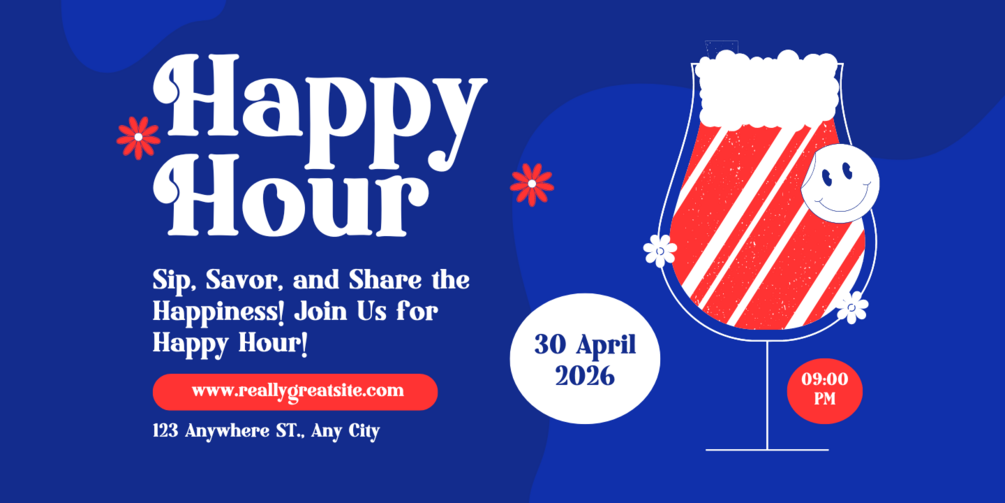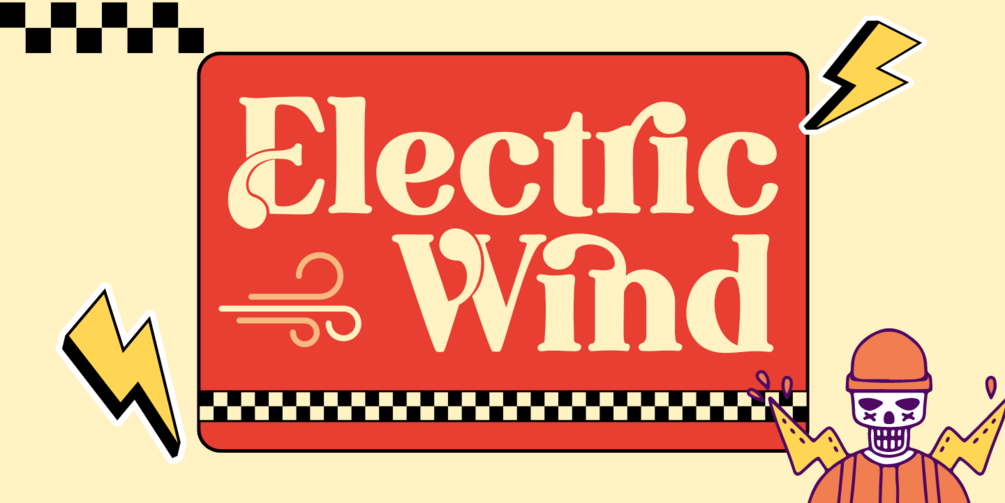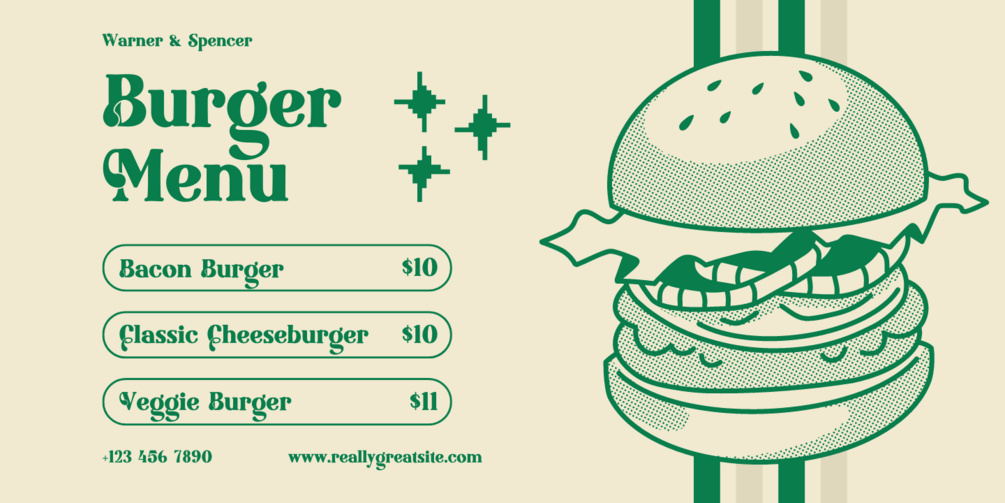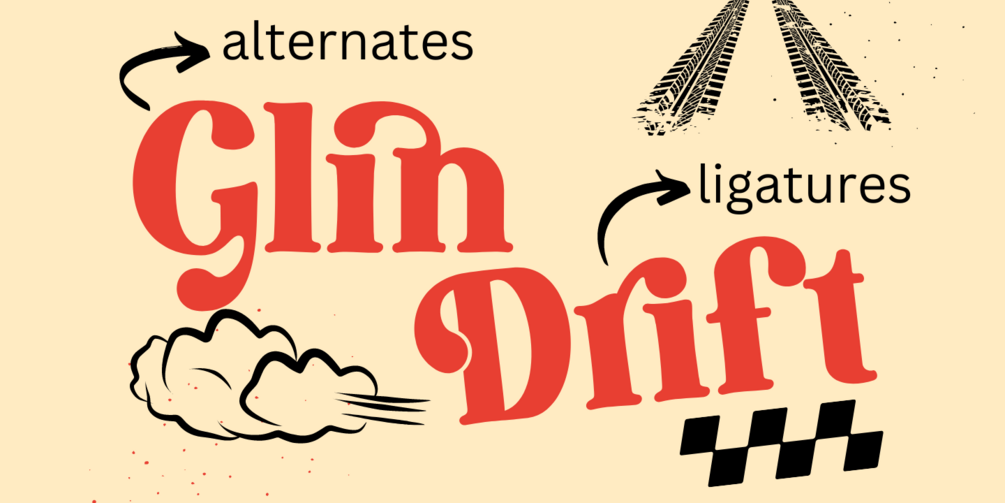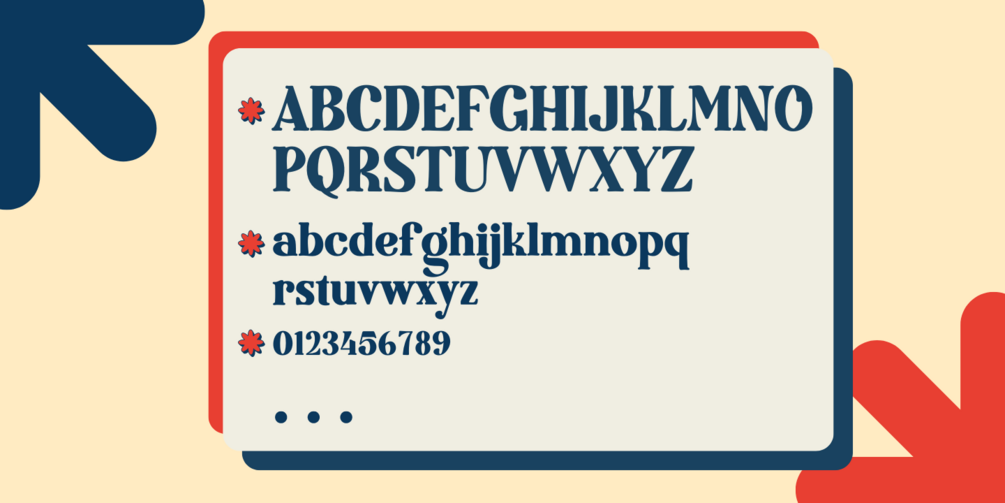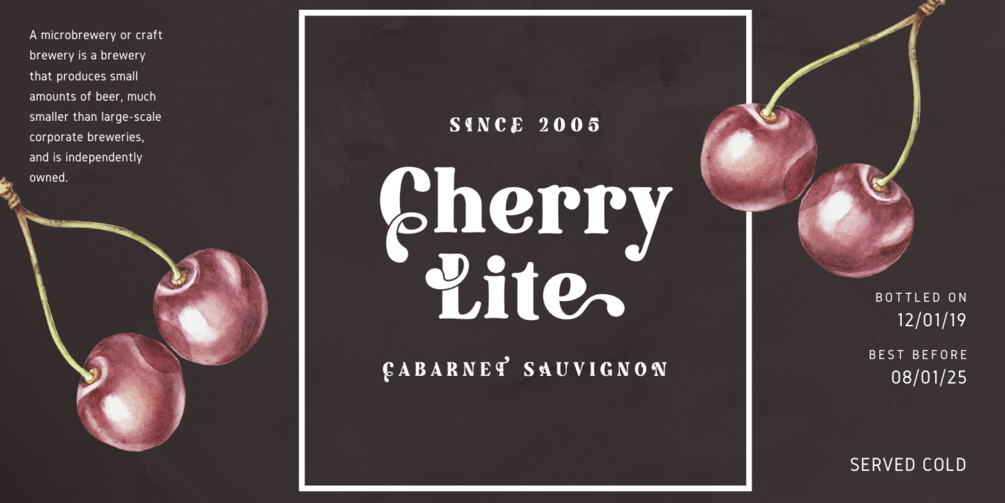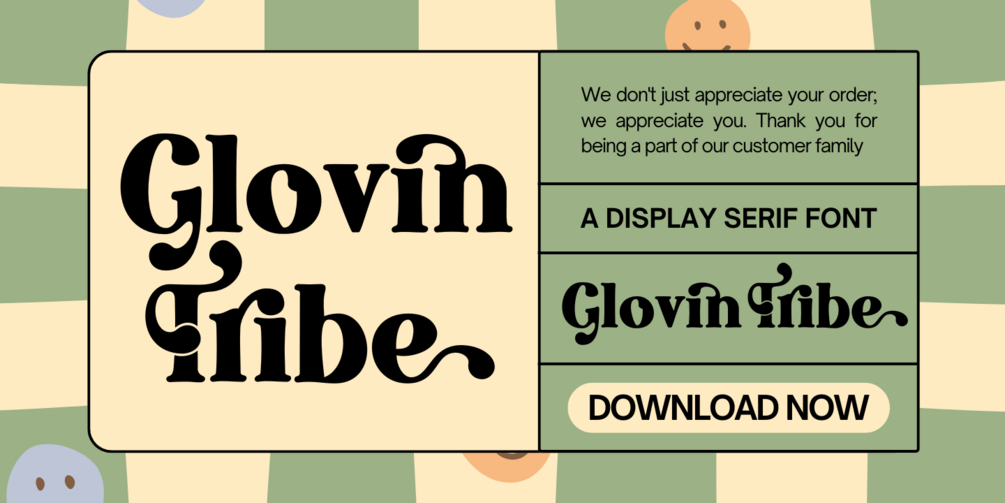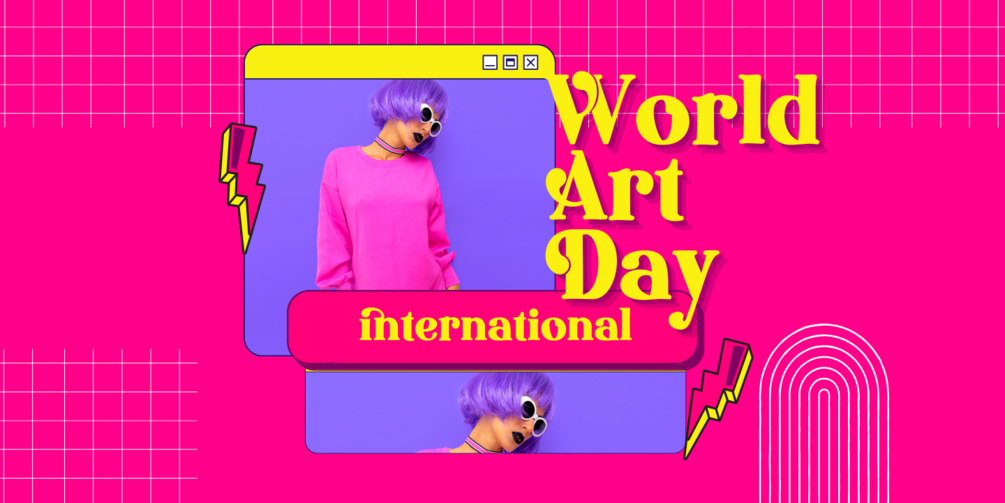
Glovin Tribe
Want a font that feels classic—but looks modern and irresistibly stylish?
Meet GLOVIN TRIBE — a serif typeface where elegance meets effortless charm.
Infused with natural ligatures and tasteful alternates, GLOVIN TRIBE blends timeless serif sophistication with subtle calligraphic flair. Its balanced curves and clean proportions bring out the best in beauty projects, luxury branding, editorial layouts, and creative templates.
✨ Modern-classic fusion with graceful detail
✨ Artistic ligatures and stylish alternates
✨ Ideal for elegant brands, ads, packaging, and more
From logos to layouts, this font was designed to elevate.
🎯 Make your designs unforgettable with GLOVIN TRIBE.